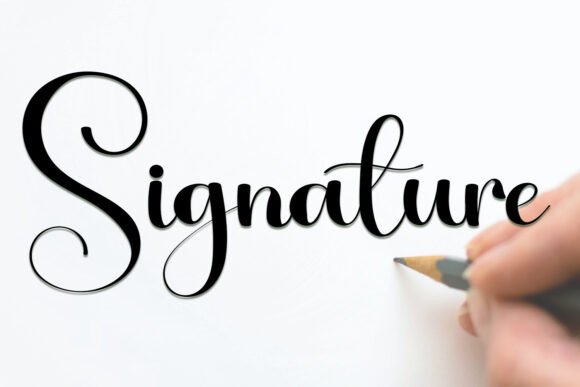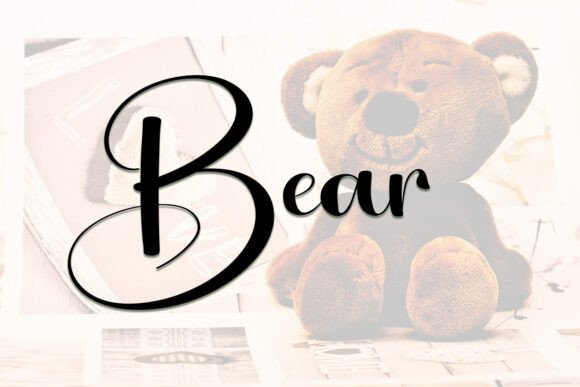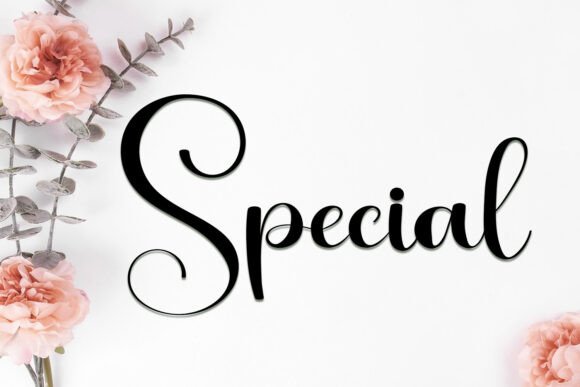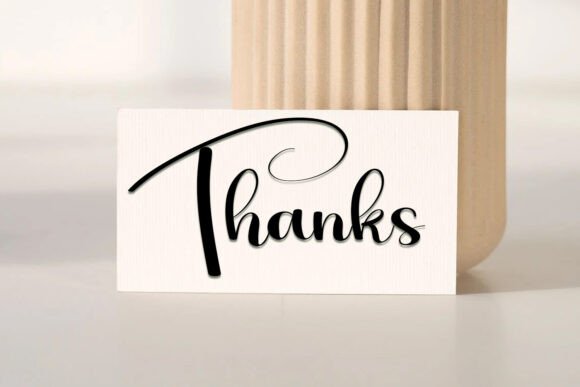
Discover the Timeless Elegance of Babysh Font
Remember the moment when you first envisioned your dream project, and the excitement of bringing it to life? For many of us, it’s a spark that sets our creativity ablaze. As designers, we’re always on the lookout for the perfect tools to breathe new life into our ideas. That’s where Babysh Font comes in – an exquisitely crafted typeface designed to elevate your designs and leave a lasting impression.
With its simple yet distinct charm, Babysh Font effortlessly adds a touch of class to any endeavour. Whether you’re creating vibrant YouTube banners, sleek logo mockups, or romantic wedding invitations, Babysh Font is the perfect companion to help your vision shine. Its harmonious blend of utility, beauty, and uniqueness makes it a valuable asset for designers looking to stand out from the crowd.
So, gift your designs the delight that is Babysh Font and watch your enterprise flourish. With its character and elegance, Babysh Font is the perfect addition to any design project.
Babysh Font Key Features
- Font Family: Babysh Font
- Font Style: Script
- Unique Characteristics: Whimsical, cursive design with a touch of playfulness, ideal for creative and artistic projects
Babysh Font Review
Overall, I think Babysh Font has some interesting qualities, but it also has some limitations that might make it less suitable for certain projects. Here’s my honest review.
- Unique and playful design: Babysh Font has a distinctive, whimsical feel that can add a lot of personality to a design.
- Good for titles and headings: The font’s bold, eye-catching style makes it well-suited for use in titles and headings where you want to grab attention.
- Clean and legible: Despite its playful feel, Babysh Font is still easy to read and understand, which is essential for any font.
- Limited flexibility: Babysh Font is a display font, which means it’s not suitable for large blocks of text. It’s best used sparingly to add emphasis and interest.
- Not ideal for body text: The font’s bold style can be overwhelming when used for extended periods, making it difficult to read.
- Lack of versatility: Babysh Font is quite specific in its style and feel, which might limit its use in projects that require a more neutral or professional tone.
Babysh Font is a fun and eye-catching font that can add a lot of personality to a design. However, its limitations mean it’s best used sparingly and in specific contexts. If you’re looking for a font to add some whimsy to your titles and headings, Babysh Font might be a good choice. But if you need a font for large blocks of text or a more neutral tone, you might want to consider something else.
For best results, use Babysh Font in conjunction with other playful and childlike elements, such as illustrations or graphics. This font is ideal for creating a whimsical and fun atmosphere in designs for children, such as nursery rhymes, children’s books, or party invitations.
When using Babysh Font, remember to balance its playful style with more serious or formal elements to avoid overwhelming the design.